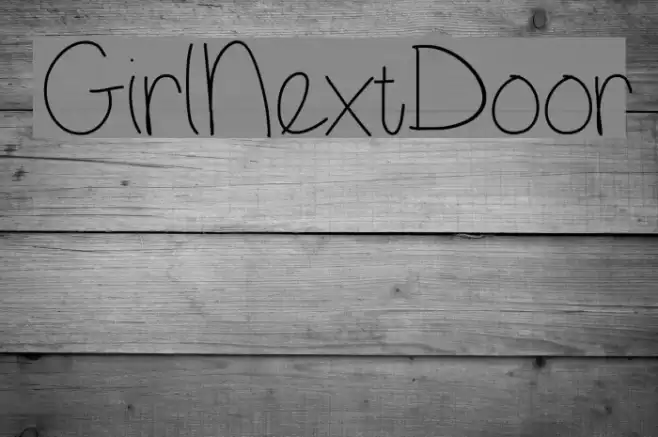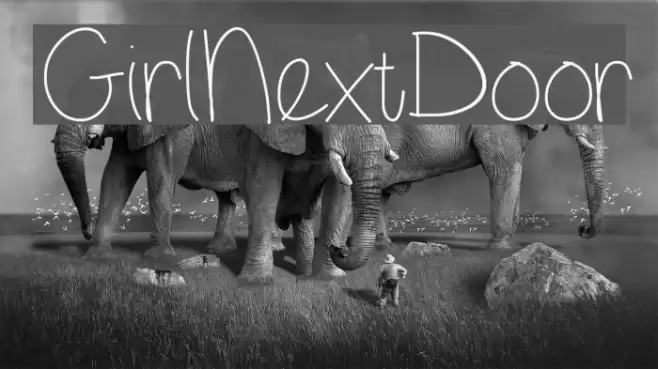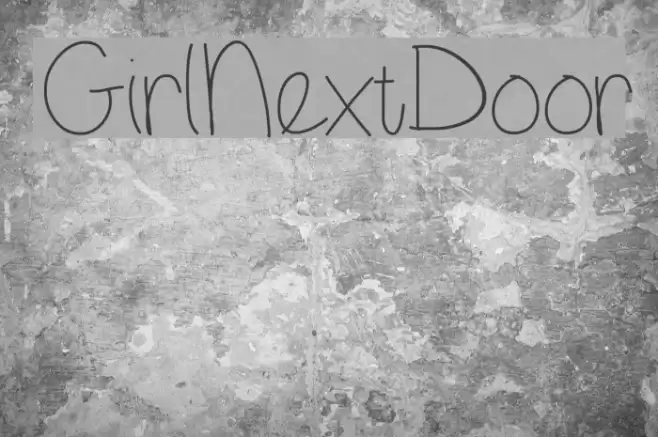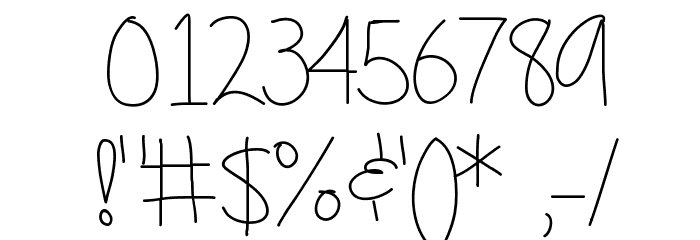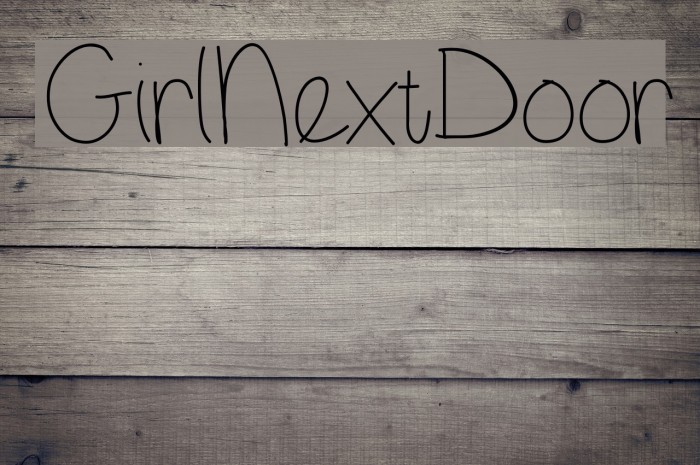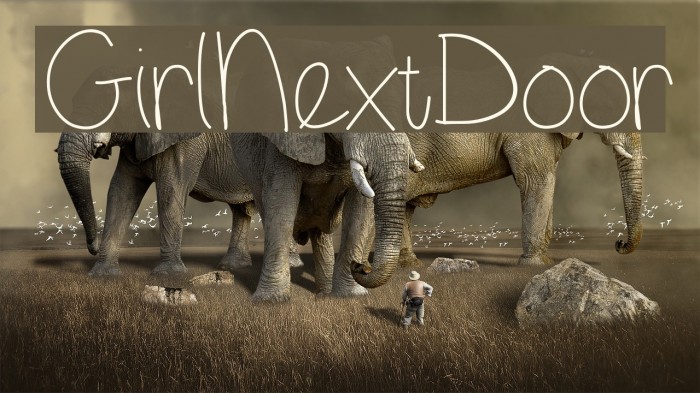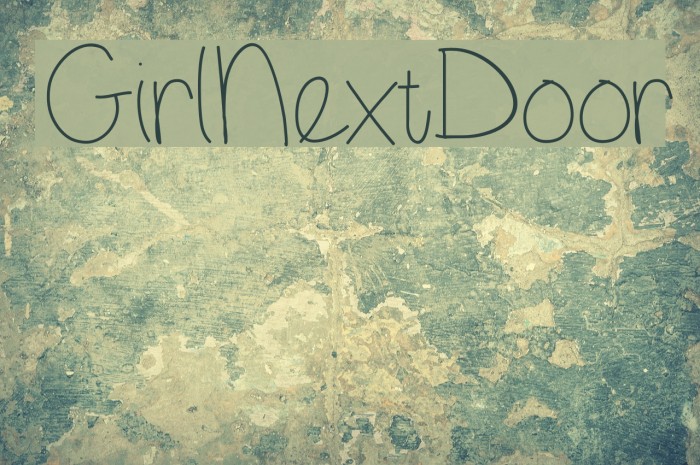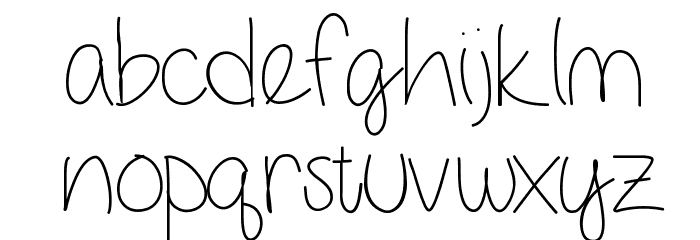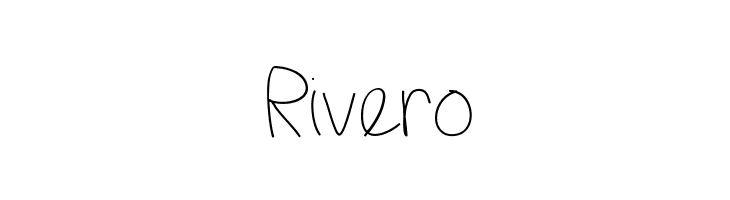
GirlNextDoor Font
GirlNextDoor Description
This font features a playful and casual handwritten style, characterized by its tall, narrow letters with a slight slant. The strokes are consistent in width, giving it a uniform appearance, while the rounded edges add a friendly touch. The uppercase letters are slightly larger than the lowercase, maintaining a cohesive look. The numbers and special characters follow the same style, ensuring a harmonious design throughout. This font exudes a youthful and approachable vibe, making it suitable for informal and creative projects.
A playful, handwritten font with tall, narrow letters and rounded edges from Uncategorized fonts.
- Proposed Projects: Ideal for children's books, greeting cards, casual invitations, and playful branding.
- Overall Style: Casual
- Use Case: Headlines, Logos, Informal Text